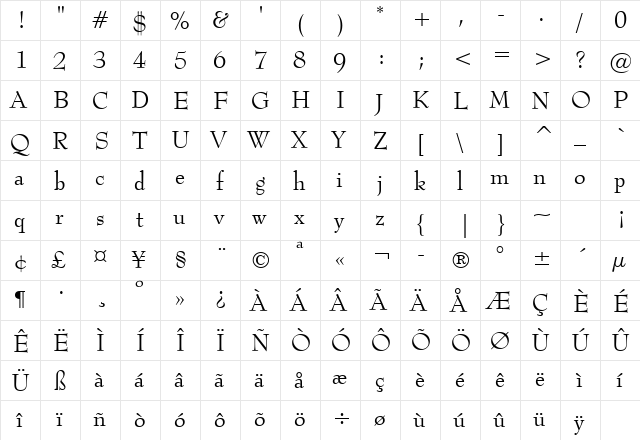
Bernhard Modern GX BT Roman
Design Context for Bernhard Modern GX BT Typeface
Bernhard Modern GX BT is a composed and adaptable typeface that performs quietly and consistently across a wide range of design contexts.
Pro Tip: Use Bernhard Modern GX BT in both headline and body roles to test its range before committing to a single application.